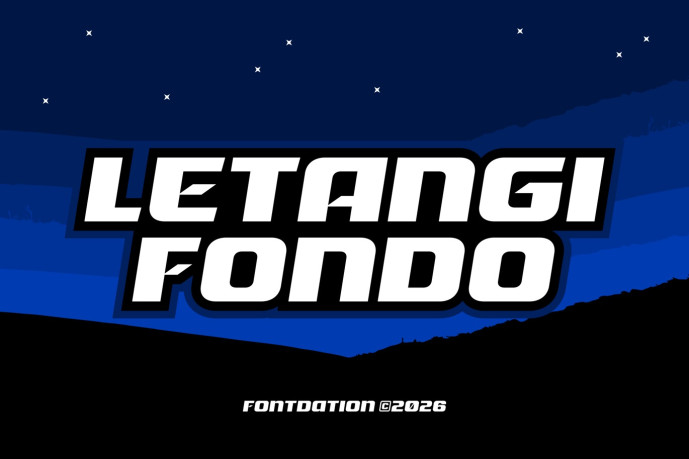
Letangi Fondo Font
Letangi Fondo Font our new multi-sports font. Designed in a slanted wide and bold personality, gives it fast/speedy feel, and also embracing a dynamic feels. Suits best for logo/branding, titles, sports number, automotive letter things, and any kind of designs that need an instant impact at very first glance. This is an all-caps font, so you can combine upper and lowercase to get more letter combinations. Multilingual characters are available, in both OTF and TTF formats.